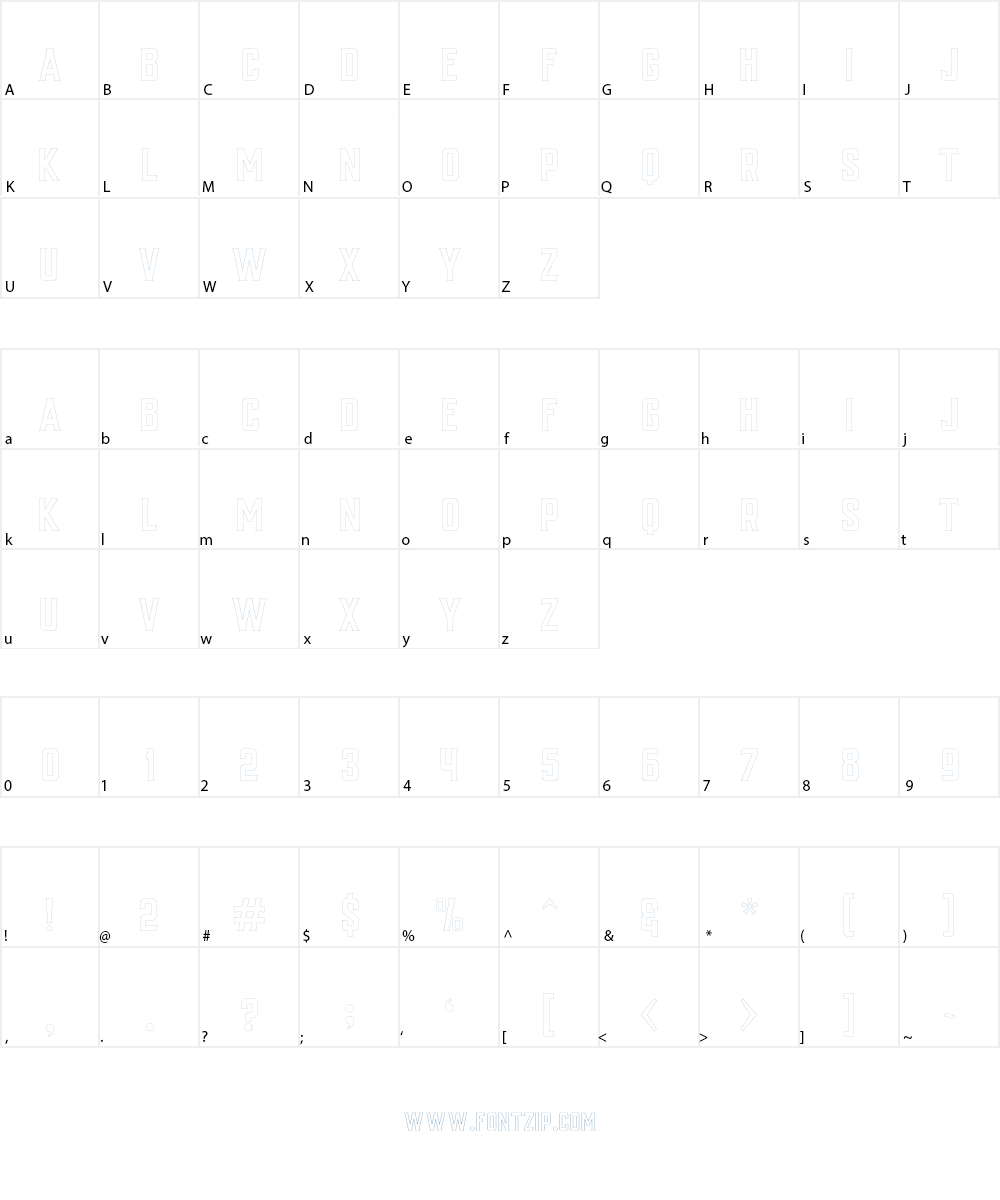
Vhiena is a vintage typeface was inspired by the likes of old serifs and classic bottles of whiskey and old labels. And for lot request we just added a new level of this typeface. We changed Vhiena Type to layered type with Endless Possibilities using 1 basic font and 7 styles effect fonts make your typography go to the next level